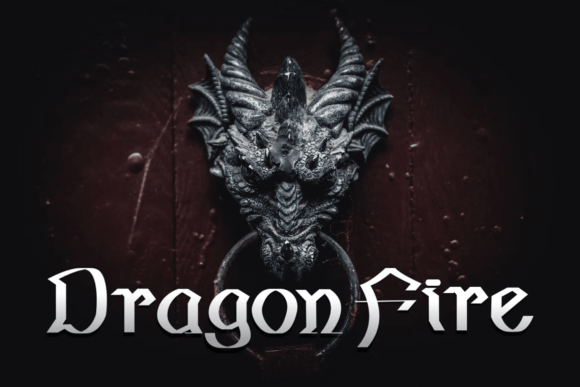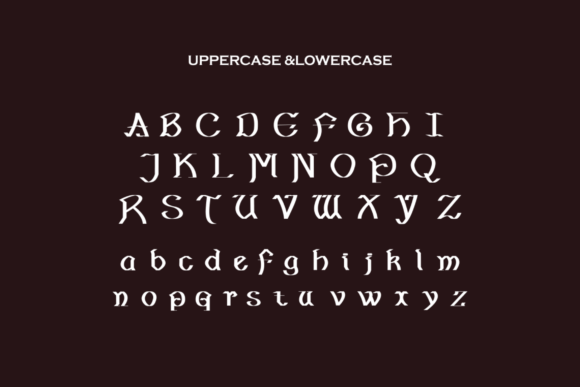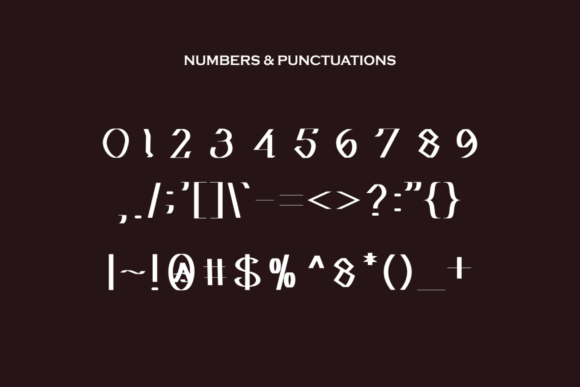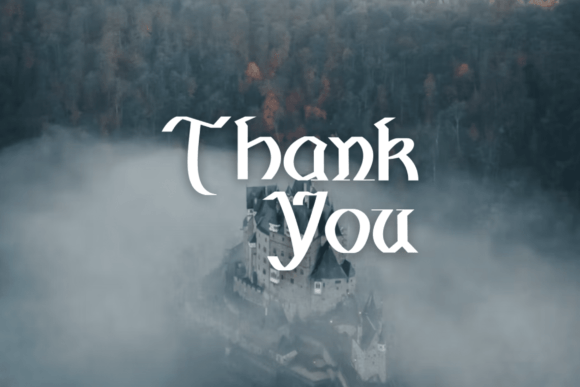
Breatmorris Font: Unleash the Medieval, Celtic Vibe in Your Designs
Are you tired of using the same old fonts in your design projects? Look no further than Breatmorris Font, a cool and unique display font that adds a touch of medieval, Celtic flair to any design. With its distinctive style and versatility, Breatmorris is sure to elevate your projects to the next level.
The Inspiration Behind Breatmorris Font
Breatmorris Font draws inspiration from the rich history of medieval and Celtic cultures. The font’s design is characterized by intricate lines, bold shapes, and a sense of grandeur, evoking the mystique of ancient castles, legendary creatures, and mythological tales. Whether you’re a designer, craftsperson, or simply someone who appreciates the beauty of the past, Breatmorris Font is sure to captivate your imagination.
Key Features of Breatmorris Font
- Unique and Distinctive Style: Breatmorris Font boasts a one-of-a-kind design that sets it apart from other fonts. Its medieval, Celtic-inspired aesthetic adds a touch of elegance and sophistication to any project.
- Display Font: Breatmorris is a display font, making it perfect for headlines, titles, and other prominent text elements. Its bold and eye-catching design ensures that your message will stand out.
- Versatile: Despite its distinctive style, Breatmorris Font is surprisingly versatile. It can be used in a wide range of design projects, from logos and branding to posters, flyers, and more.
How to Use Breatmorris Font in Your Designs
Adding Breatmorris Font to your design projects is simple. Here are a few tips to get you started:
- Pair it with a Simple Font: Breatmorris Font is bold and eye-catching, so it’s best to pair it with a simpler font for body text. This will create a nice contrast and ensure that your design doesn’t feel overwhelming.
- Use it for Headlines and Titles: Breatmorris Font is perfect for headlines and titles, where its bold and distinctive style can shine.
- Experiment with Colors and Textures: Breatmorris Font looks great in a variety of colors and textures. Don’t be afraid to experiment and find the combination that works best for your design.
Design Ideas Using Breatmorris Font
Breatmorris Font is a versatile design element that can be used in a wide range of projects. Here are a few ideas to get you started:
- Medieval-Themed Posters: Create a poster for a medieval-themed event or exhibition using Breatmorris Font as the main font.
- Celtic-Inspired Logos: Use Breatmorris Font to create a logo for a brand that wants to evoke the mystique of Celtic culture.
- Fantasy Book Covers: Breatmorris Font is perfect for fantasy book covers, where its medieval, Celtic-inspired aesthetic can help to create a sense of excitement and adventure.
Breatmorris Font is a unique and versatile design element that can add a touch of medieval, Celtic flair to any project. With its distinctive style, bold shapes, and sense of grandeur, it’s sure to captivate your imagination and elevate your designs to the next level. So why not give Breatmorris Font a try and see the amazing outcome for yourself?